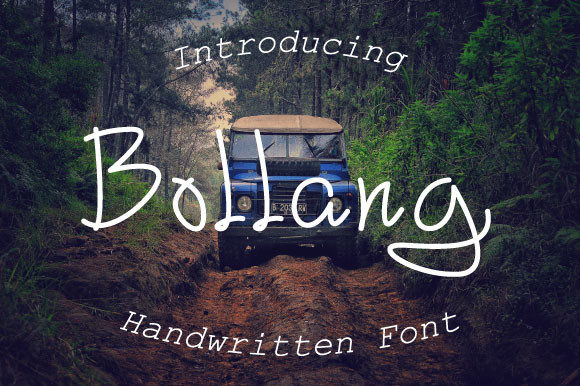
The Bollang Font: A Cute and Simple Lettered Handwritten Font for Designers
This cute and simple lettered handwritten font has been a game-changer for my designs. Its authentic look adds a personal and realistic feel that’s perfect for chalkboard quotes, teaching materials, and more. In this article, I’ll share my honest review of the Bollang font, provide a practical guide on how to use it, and explore similar fonts you might love.
- ✅ Authentic look: The Bollang font has a genuine, hand-written feel that’s perfect for creating chalkboard-style designs.
- ✅ Easy to read: Despite its handwritten nature, the font is surprisingly easy to read, even at smaller sizes.
- ✅ Versatile: The Bollang font works well for a wide range of design projects, from educational materials to social media graphics.
- ✅ Cute and playful: This font is perfect for designs that require a touch of whimsy and personality.
- ⚠️ Limited character set: While the Bollang font has a wide range of characters, it may not have every special character or glyph you need.
- ⚠️ Not suitable for body text: Due to its handwritten nature, the Bollang font is best used for headings, titles, and short paragraphs.
The Story Behind Bollang
The Bollang font was designed with the intention of creating a simple, yet authentic handwritten font that captures the essence of chalkboard writing. The designer aimed to create a font that would add a personal touch to designs, making them feel more realistic and engaging.
| What is the Bollang font best used for? | The Bollang font is perfect for designs that require a personal, handwritten touch, such as chalkboard quotes, teaching materials, and social media graphics. |
| Is the Bollang font easy to read? | Yes, despite its handwritten nature, the Bollang font is surprisingly easy to read, even at smaller sizes. |